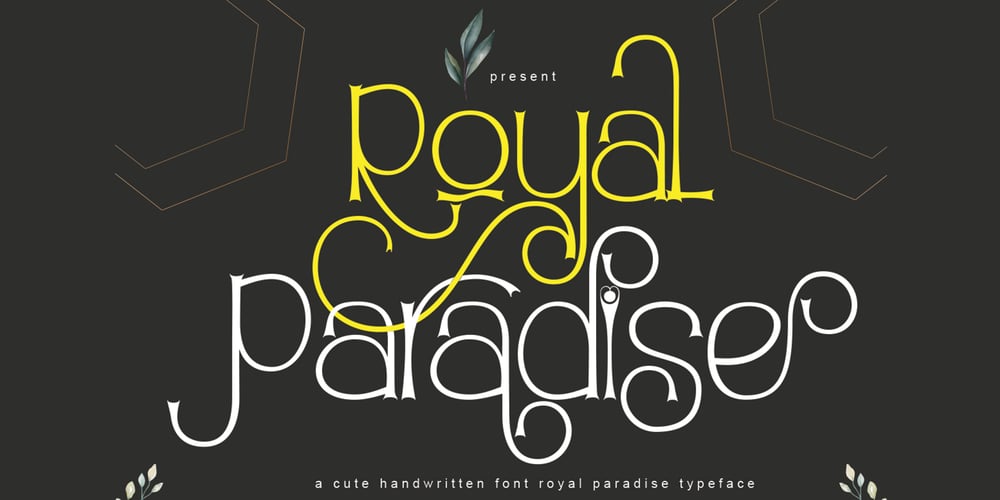
Royal Paradise
Royal Paradise font
Royal Paradise Font Family was designed by Ibram Syah and published by Jehansyah. Royal Paradise contains 1 styles and family package options. Royal Paradise This is a beautiful thin font, with a variety of alternatives that you can use, this font is perfect for anything that has a romantic feel or looks simple elegant and will complement the luxurious side of your design.make sure you don’t miss this font.include : Numeric latin Alternate Thank you very much